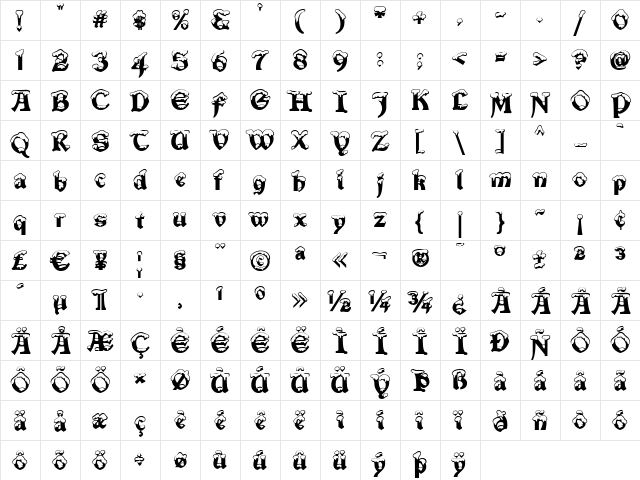
Snowgoose Regular
| Foundry | Typodermic |
Design Context for Snowgoose Typeface
Snowgoose is a composed and adaptable typeface that performs quietly and consistently across a wide range of design contexts.